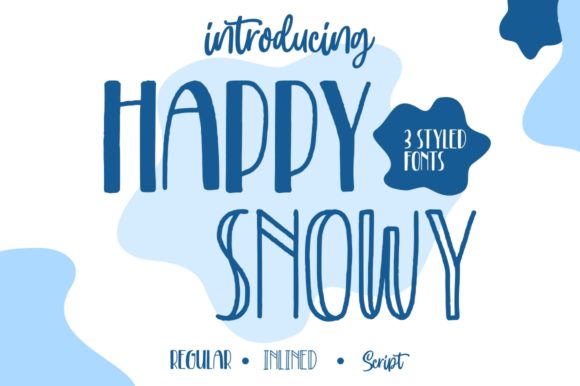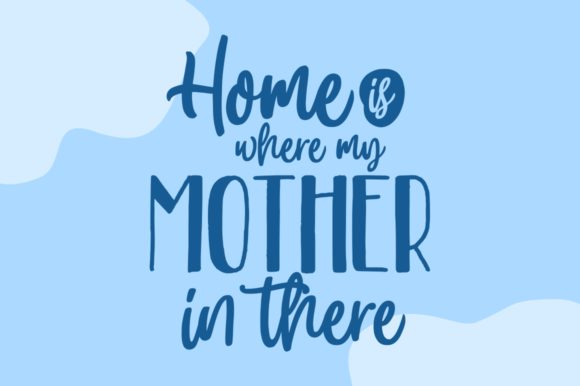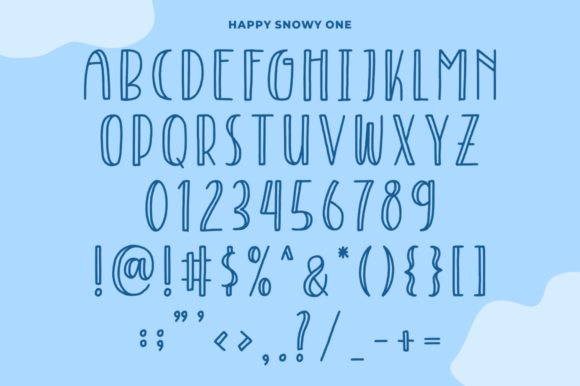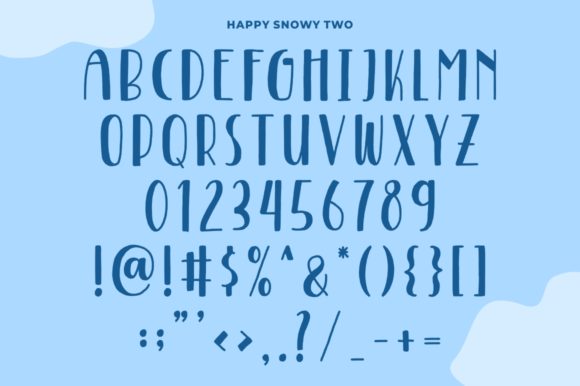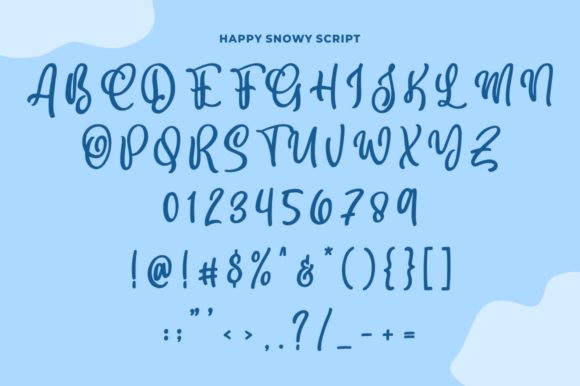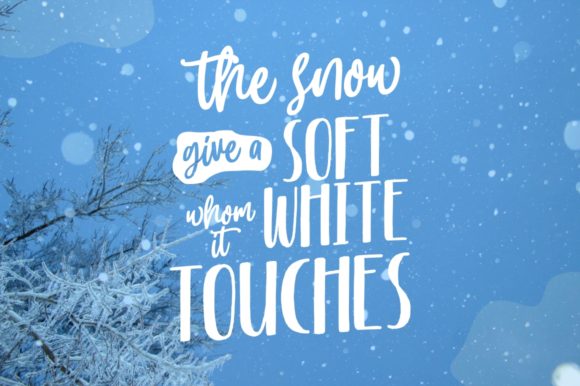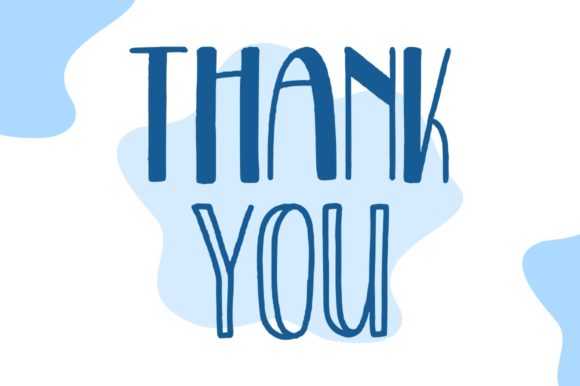
HomeScript FontsHappy Snowy Font Script Fonts Happy Snowy Font FacebookXPinterestWhatsApp Happy Snowy Font Poster 2 Happy Snowy Font Poster 3 Happy Snowy Font Poster 4 Happy Snowy Font Poster 5 Happy Snowy Font Poster 6 Happy Snowy Font Poster 7 About Happy Snowy Font Happy Snowy is a lovely handwritten font. Fall in love with its playful look & feel! DOWNLOAD NOW People also explored Luxury Vibes Font Freya Font Holy Type Font Michella Calvert Font Together Forever Font Regina Font Handmade Painting Font Ball Moon Font Alyale Font 296 0 TagsHappy Snowy Font Previous articleQuantum FontNext articleTaco Loco Font LEAVE A REPLY Cancel reply Comment: Please enter your comment! Name:* Please enter your name here Email:* You have entered an incorrect email address! Please enter your email address here Website: Save my name, email, and website in this browser for the next time I comment. Personal Use Free Amillina Monogram Personal Use Free Read more about this font Unlock Endless Creativity with the FREE September Clipart Huge Bundle (Valued at $700!) Personal Use Free Read more about this font Beattingvile Personal Use Free Read more about this font Bitcrusher Condensed Bold Personal Use Free Read more about this font BLOG Top 7 Google Fonts Alternatives for Faster and Privacy-Friendly Web Design (2025) Top 7 Google Fonts Alternatives for Faster and Privacy-Friendly Web Design (2025) When it comes to web typography, Google Fonts has long been the go-to... Elegant Wedding Invitation Fonts – Handwritten & Script Fonts To increase your work productivity, choose the most readable fonts. Best Fonts for T-Shirt Design – Top 2025 Picks